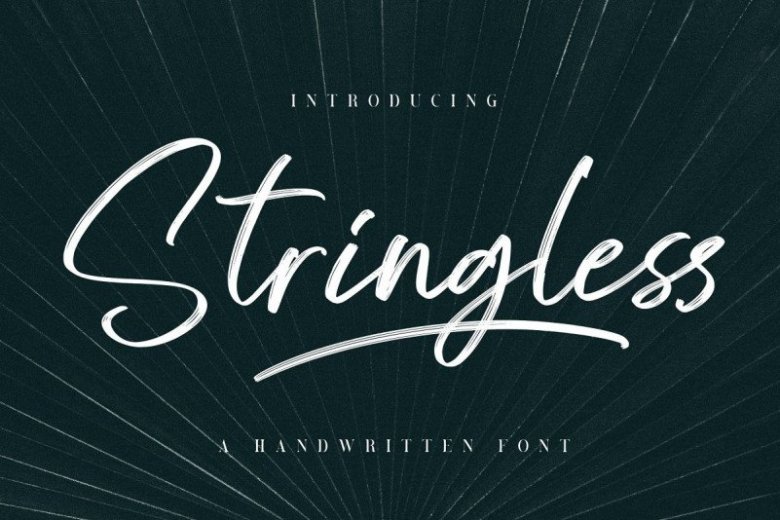
Stringless Brush Font Free
Stringless Brush Font– Elegant Script Typeface with a natural handwritten feel. This handmade font will make your design has a beautiful natural touch for each details. It’s designed and shared by Hanzel Studio. This font is a handwritten font, with sharp details. Written with a dry brush pen with quick movements, and relaxed.
Comes with two font styles, it will be beautiful, and unique when combining both into one unit. And be perfect, when coupled with swash. Suitable for branding, advertising, headlines, packaging design, and more.